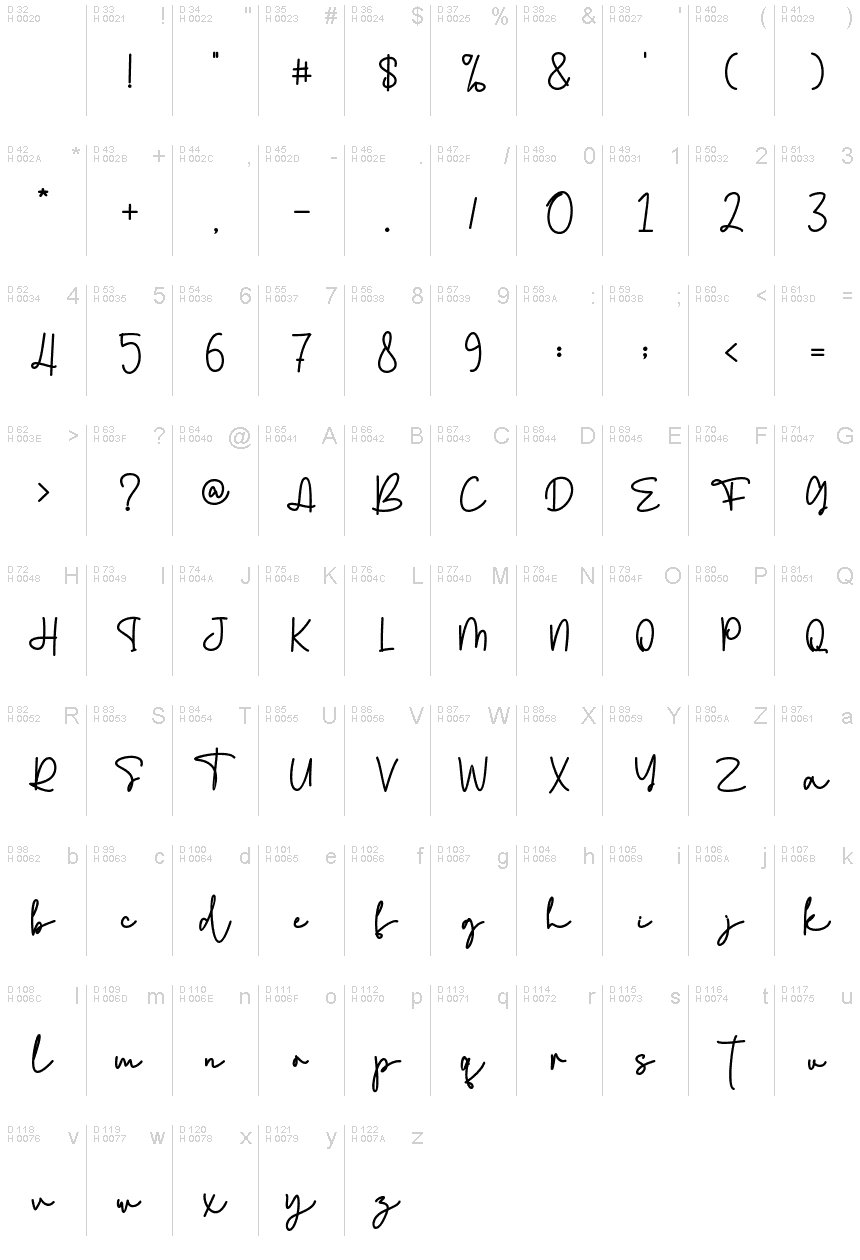
Welcome to the festive world of Christmas Letter, the perfect handwritten font for all your holiday projects. Designed by Stefani Letter, this light typeface captures the essence of the season with its playful and whimsical strokes. Whether you're creating greeting cards, invitations, or holiday-themed flyers, Christmas Letter adds a touch of warmth and cheer to all your designs. Its elegant and readable style makes it suitable for both print and digital media. So why wait? Download Christmas Letter today and spread joy in everything you create!